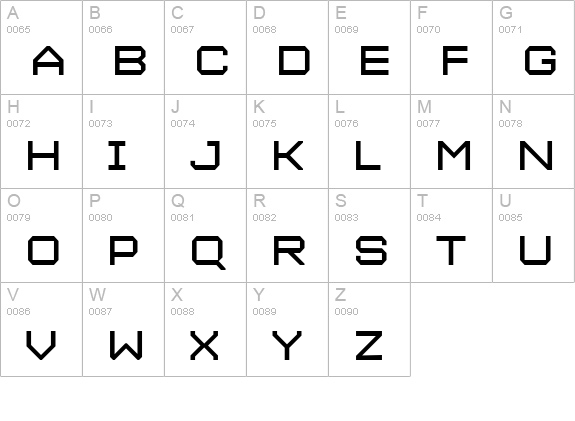
Maetl font is a modern and stylish typeface that exudes elegance and sophistication. With its sleek lines and unique letterforms, this font is perfect for adding a touch of class to any design project. Whether you're working on a logo, branding materials, or a website, Maetl font will elevate your design to the next level. One of the best things about Maetl font is that it is free. Yes, you read that right! This incredible font is freely available to download at FontsMarket.com. You don't need to worry about breaking the bank or compromising on quality. Maetl font offers the perfect combination of style and affordability. When you choose Maetl font, you're not only getting a beautiful typeface, but you're also getting a versatile tool that can be used in a variety of design contexts. Its clean and legible letterforms make it ideal for both headings and body text, ensuring that your message is conveyed clearly and effectively. The attention to detail in Maetl font is truly remarkable. Every glyph is meticulously designed to create a harmonious and visually pleasing overall appearance. When you use Maetl font, you can rest assured that your design will stand out from the crowd and leave a lasting impression on your audience. So why wait? Download Maetl font for free at FontsMarket.com and start adding a touch of elegance to your designs today. Whether you're a professional designer or a hobbyist, this font is sure to become a valuable addition to your typography collection. Don't miss out on this incredible opportunity to enhance your creativity and take your designs to new heights.